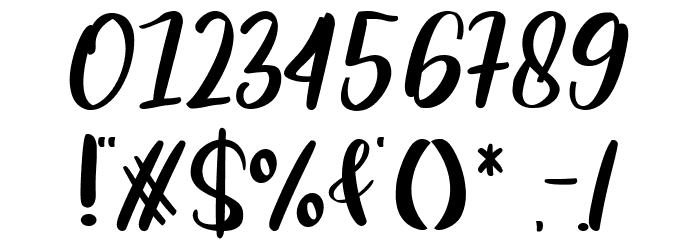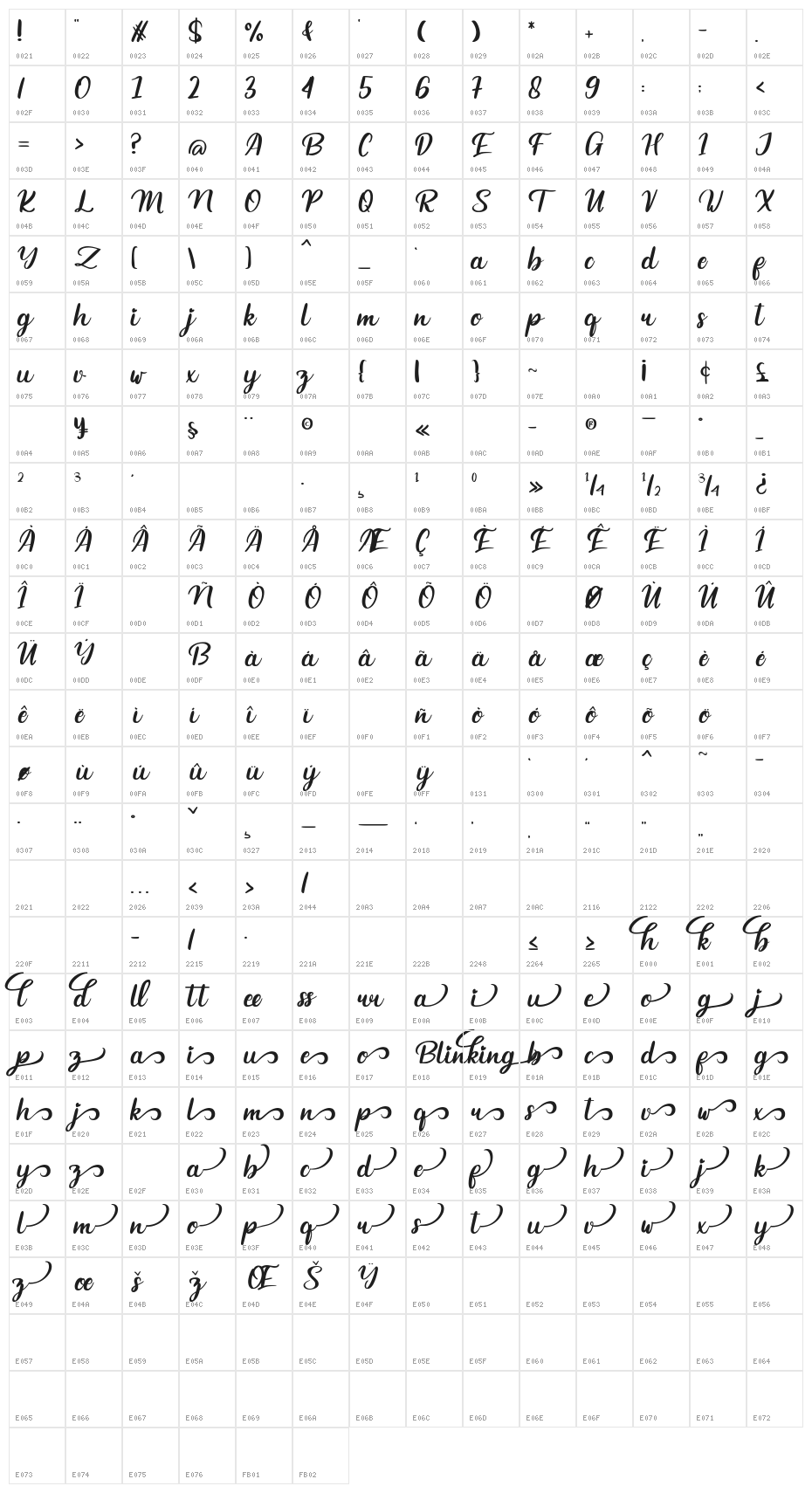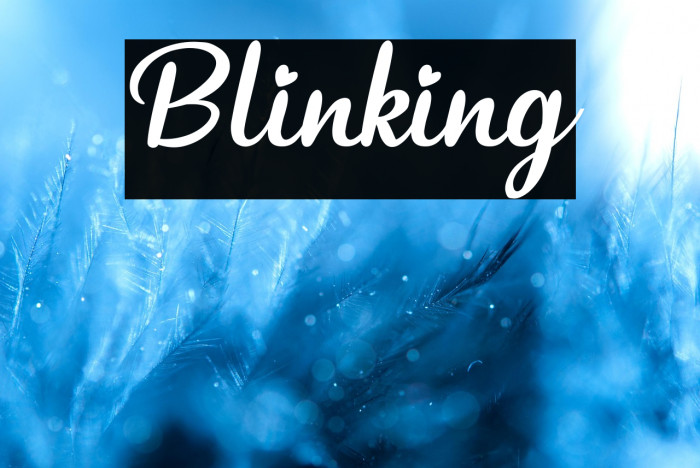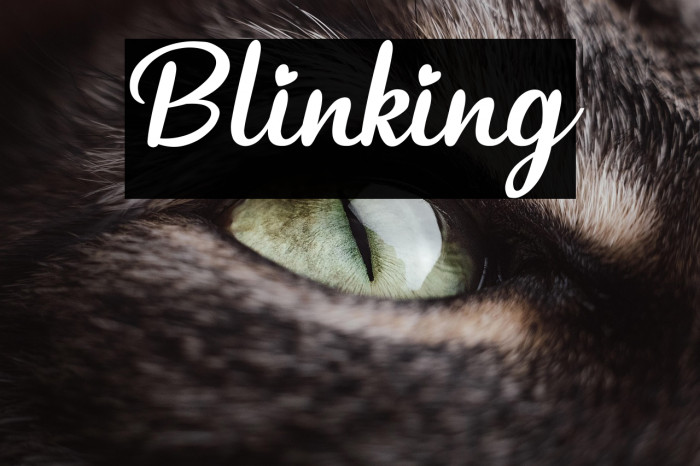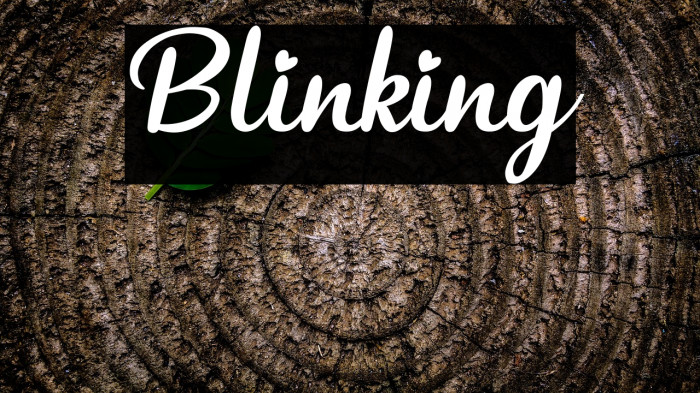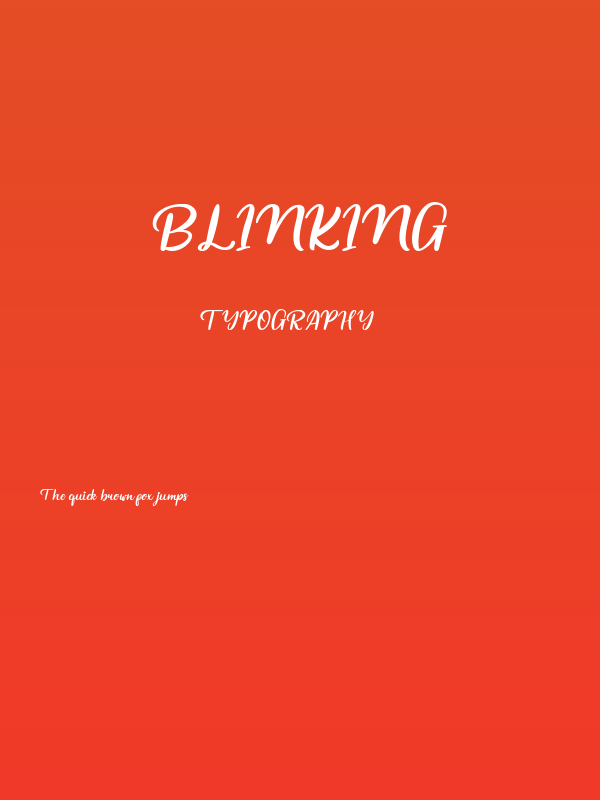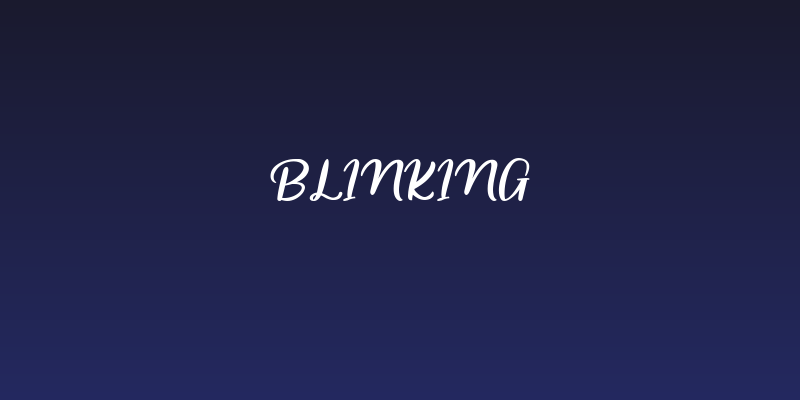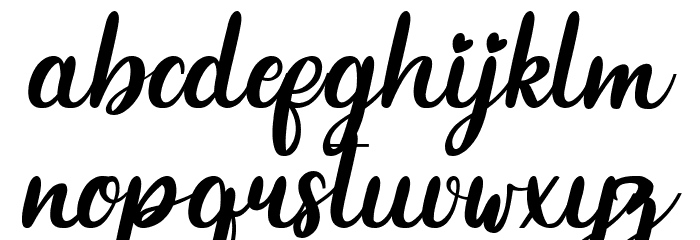
Blinking Font
Blinking Description
This font features a lively and flowing script style, characterized by its elegant and connected letterforms. The uppercase letters exhibit a graceful, cursive flair, while the lowercase letters maintain a consistent, smooth flow. The numerals are designed with a similar fluidity, ensuring a cohesive look across all characters. Special characters are crafted with attention to detail, complementing the overall aesthetic. The font's strokes vary in thickness, adding a dynamic and expressive quality to the text. Its design is both stylish and versatile, suitable for a range of creative applications.
Use CaseLogos, Invitations, Decorative text
Proposed ProjectsIdeal for wedding invitations, greeting cards, branding, and logo design.